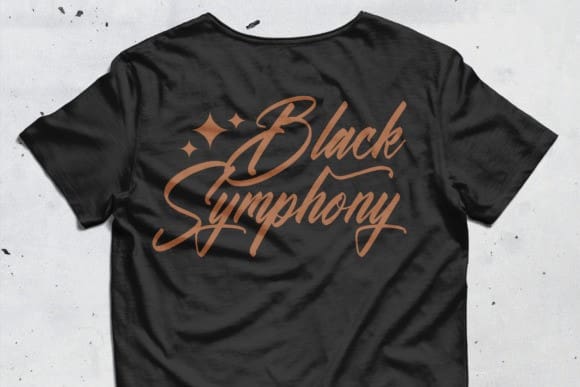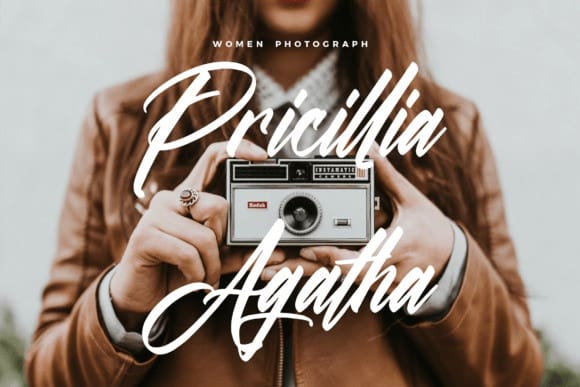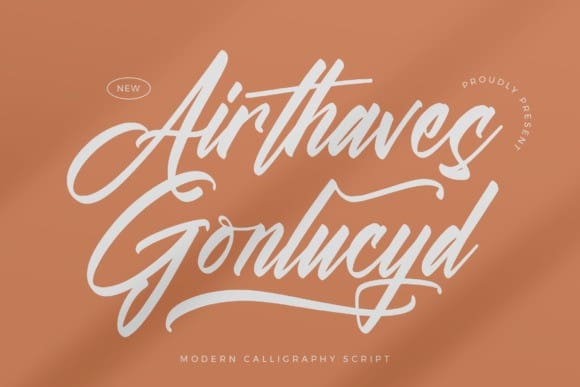
Airthaves Gonlucyd Font
Airthaves Gonlucyd Font is a lovely and timeless handwritten font. It is the best choice for creating eye-catching logos, branding, and quotes. Every letter has a unique and beautiful touch, which will make your design come alive!